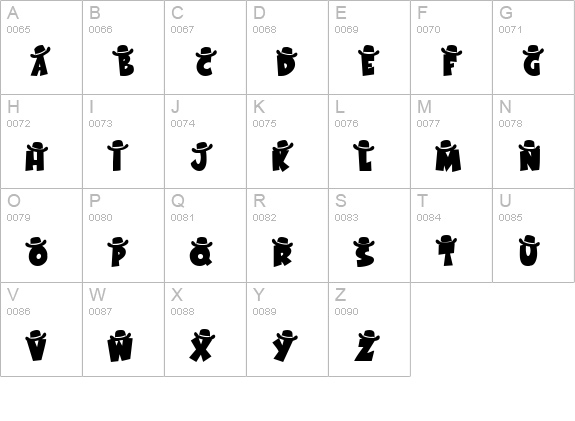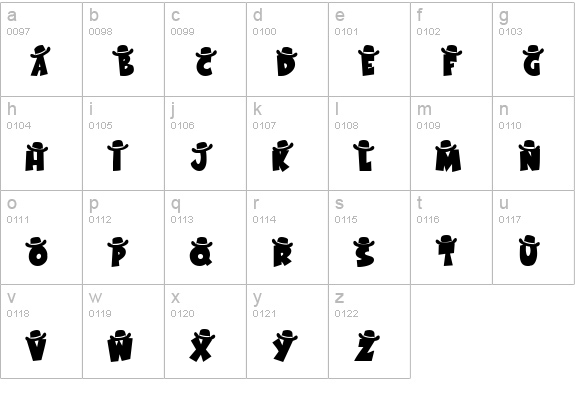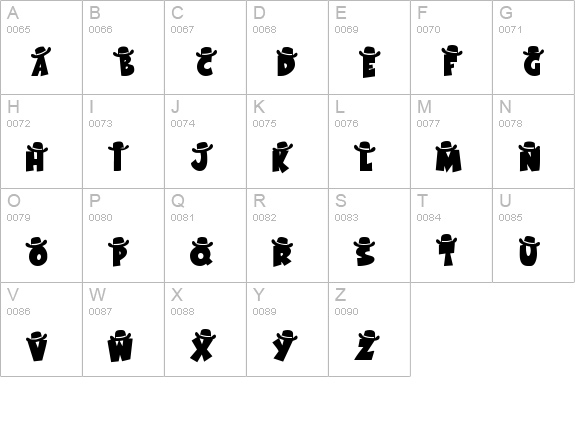
KR Western Wear 1 Font Details
Introducing KR Western Wear 1 font, a striking and versatile typeface that captures the essence of the Wild West with a modern twist. This font exudes rugged charm and cowboy cool, making it perfect for projects that require a touch of western flair. With its bold lettering and unique design, KR Western Wear 1 font is sure to make a statement in any creative endeavor. Whether you're working on a poster for a rodeo or designing branding for a country music festival, this font will bring a touch of authenticity and character to your project. The best part? KR Western Wear 1 font is available for **free** download at FontsMarket.com. So saddle up and add this font to your collection today to bring a touch of the frontier to your designs.